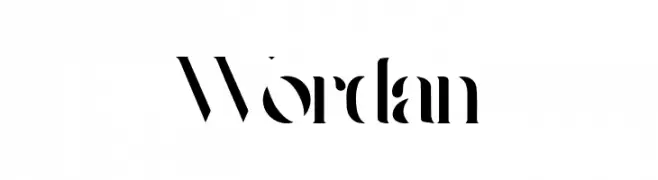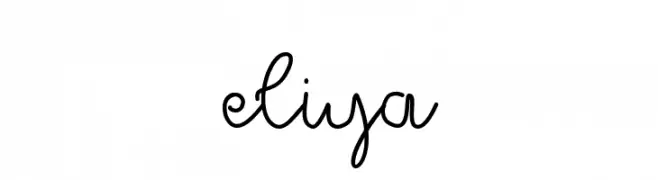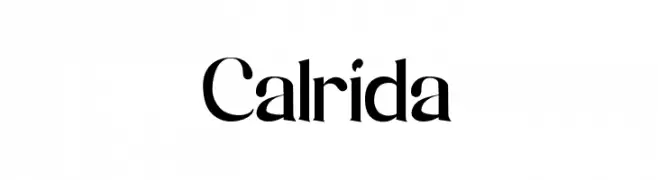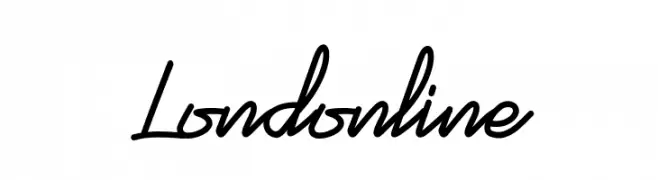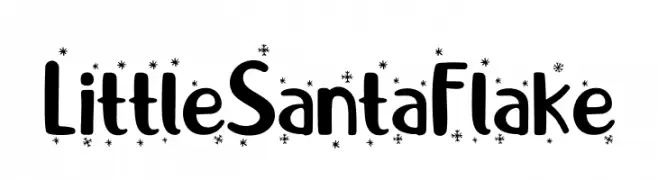
An elegant script font with flowing curves and intricate swirls.
A graceful, flowing script font with elegant, thin strokes and a dynamic slant.
A classic serif font with modern elegance and balanced proportions.
A lively and expressive handwritten font with fluid, artistic letterforms.
An elegant script font with flowing, ornate characters.
A modern, high-contrast font with sharp angles and smooth curves.
A playful, handwritten font with smooth, interconnected strokes.
A high-contrast, geometric serif font with a modern yet classic appeal.
A dynamic, flowing script font with elegant cursive letterforms and modern calligraphic style.
A playful, snowflake-accented font with bold, rounded characters.